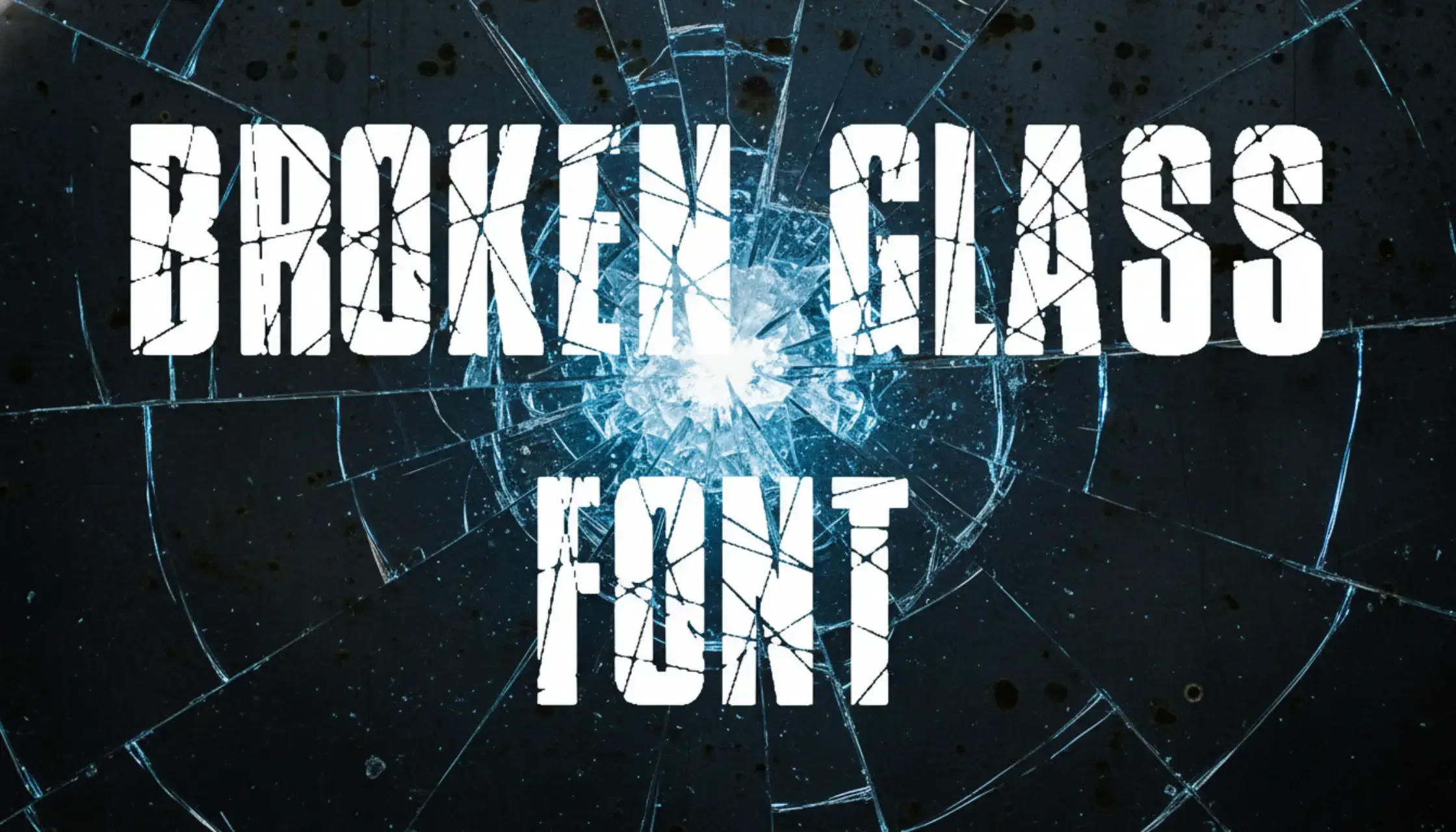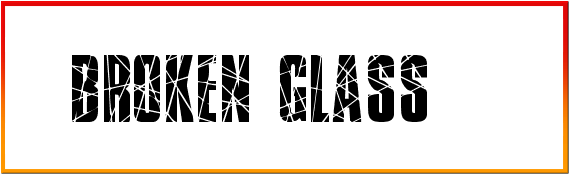
Broken Glass Font
Broken Glass Font Preview
Broken Glass
Broken Glass is a fancy font. Bold and full of character, it's built to stand out rather than blend in. You can download it for free and test it with your own words in the preview above.
What You Can Type With Broken Glass
Broken Glass covers the full alphabet in upper and lowercase, plus all ten numbers, so you can set names, dates and prices without switching fonts. Everyday marks like &, !, ? and @ are there too. Thanks to its accented letters, it also works for Spanish, French, German, Portuguese and Italian, not just English.
Where Broken Glass Works Best
Think of Broken Glass for posters, logos and eye-catching headlines. Use it for one standout word or headline and let simpler fonts handle the rest.
Does Broken Glass support accented letters?
Yes. Broken Glass includes the accented letters needed for Spanish, French, German, Portuguese and Italian, so it works for more than just English.